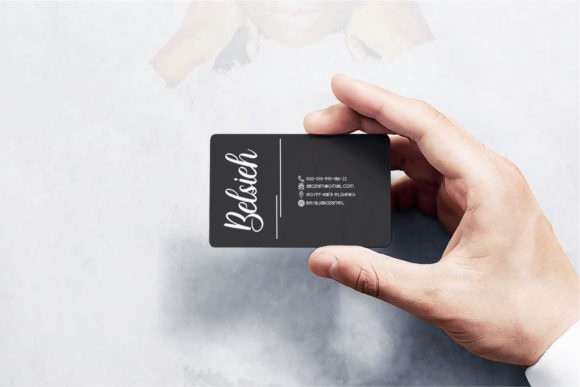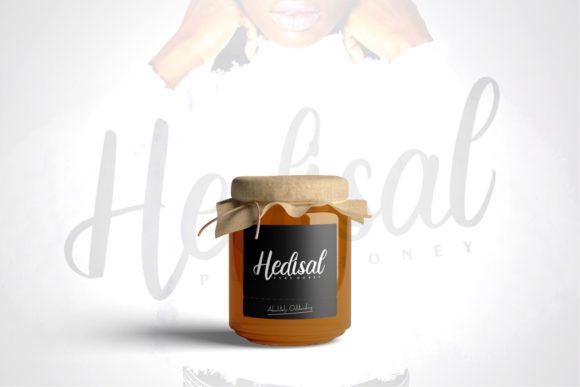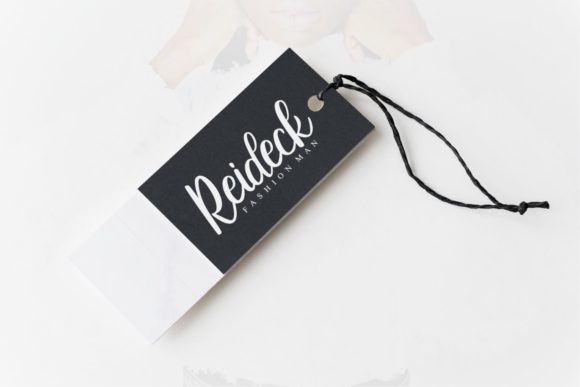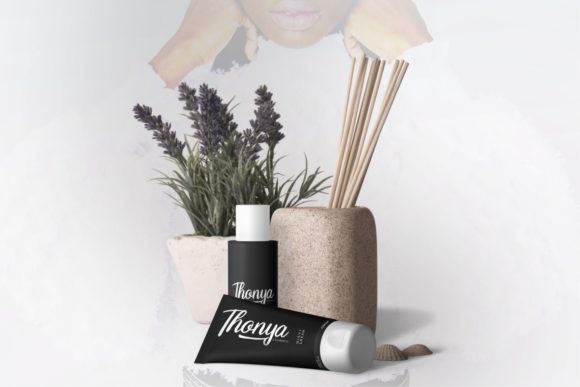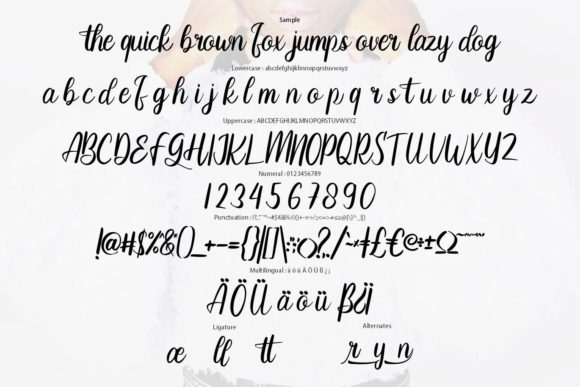
The Perfect Script: Unleashing the Magic of Arisyan Font
There’s something special about the moment when a design comes together, and you know you’ve created something truly beautiful. It’s the spark of creativity that ignites when you pair the right fonts, colors, and textures to convey your message. For designers, this moment is what drives us to experiment, to push boundaries, and to create something unique.
One font that has been a game-changer for many designers is the Arisyan Font, a well-balanced and cursive script font that exudes elegance and sophistication. Whether you’re working on a fashion branding project or an editorial design, the Arisyan Font is the perfect addition to elevate your work. Its smooth curves and refined lines make it a valuable asset for designers looking to add a touch of luxury to their projects.
Arisyan Font Key Features
- Font Family: Arisyan is a unique, modern font family designed for use in digital and print media.
- Character Set: The font family includes a comprehensive set of characters, including Latin, Cyrillic, and Greek scripts, making it suitable for use in multilingual environments.
- Resolution: Designed for high-resolution displays, Arisyan Font looks great at resolutions up to 300 DPI, making it ideal for use in print materials, web design, and digital signage.
- Font Size: Arisyan Font is available in 5 weights, ranging from Light to Black, allowing designers to choose the perfect weight for their project.
- Unique Characteristics: Arisyan Font features a unique blend of geometric and organic shapes, resulting in a distinctive and eye-catching appearance that sets it apart from other font families.
Arisyan Font Review
Arisyan Font is an elegant and sophisticated font that has caught my attention. I’ve had a chance to work with it on a few projects, and here’s my honest review.
- ✨ Unique aesthetic: Arisyan Font has a distinct, handcrafted feel that sets it apart from other fonts.
- ✨ Readability: It’s surprisingly readable, even at smaller font sizes.
- ✨ Versatility: Arisyan Font works well for both digital and print media, making it a great choice for multi-platform projects.
- ⚠️ Not ideal for body text: While Arisyan Font is great for headings and titles, it may not be the best choice for large blocks of body text due to its complex design.
Arisyan Font is a beautiful and unique font that can add a touch of elegance to your projects. While it has some limitations, its strengths make it a great choice for the right projects. If you’re looking for a font that stands out from the crowd, Arisyan Font is definitely worth considering.
Tips for Getting the Most Out of Arisyan Font
For best results, use Arisyan font in bold or italic styles to add emphasis to your text. Experiment with different font sizes and colors to create a visually appealing design.
Arisyan font is ideal for use in creative and artistic projects, such as invitations, posters, and social media graphics. It’s also suitable for use in branding and logo design.